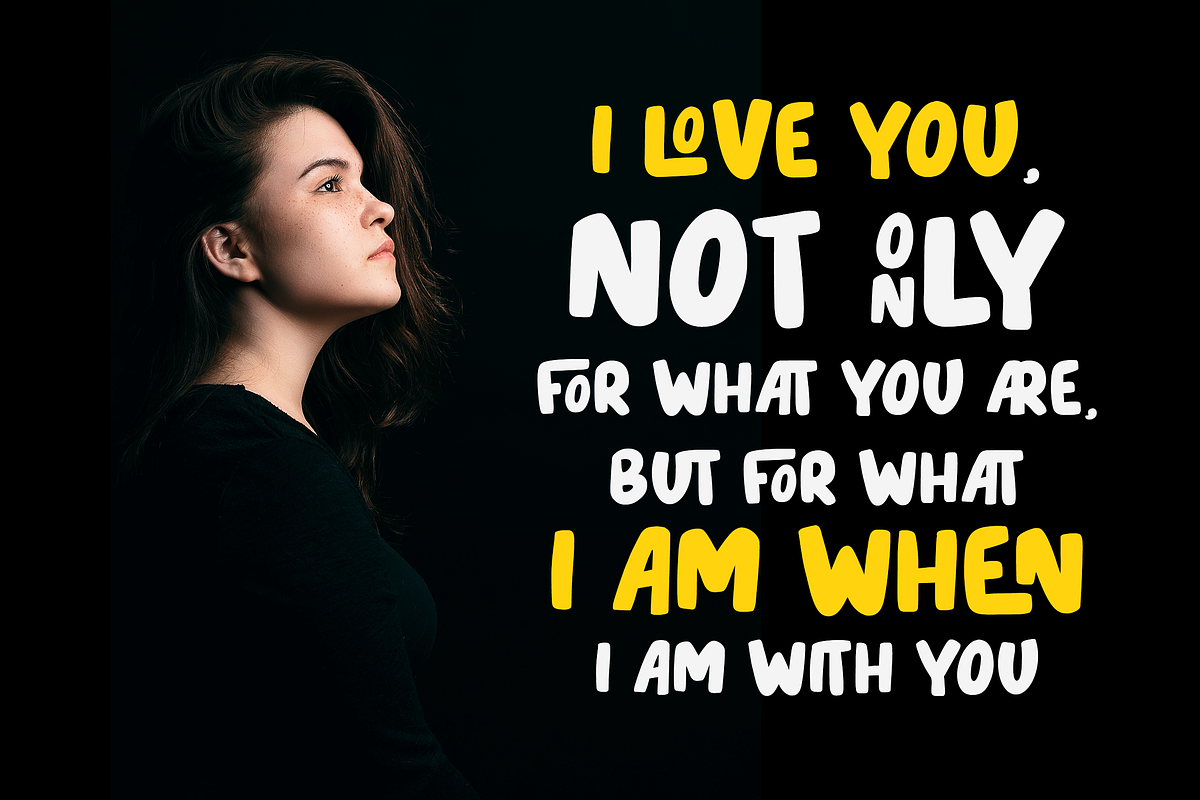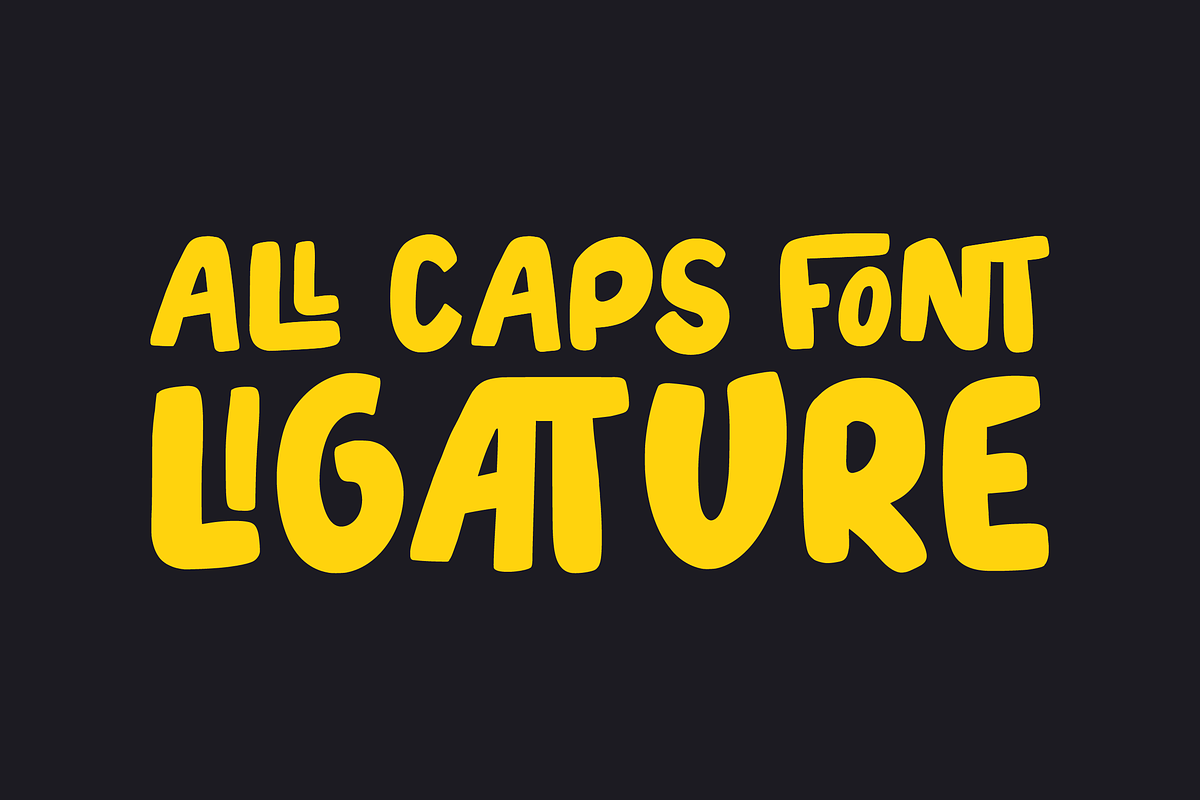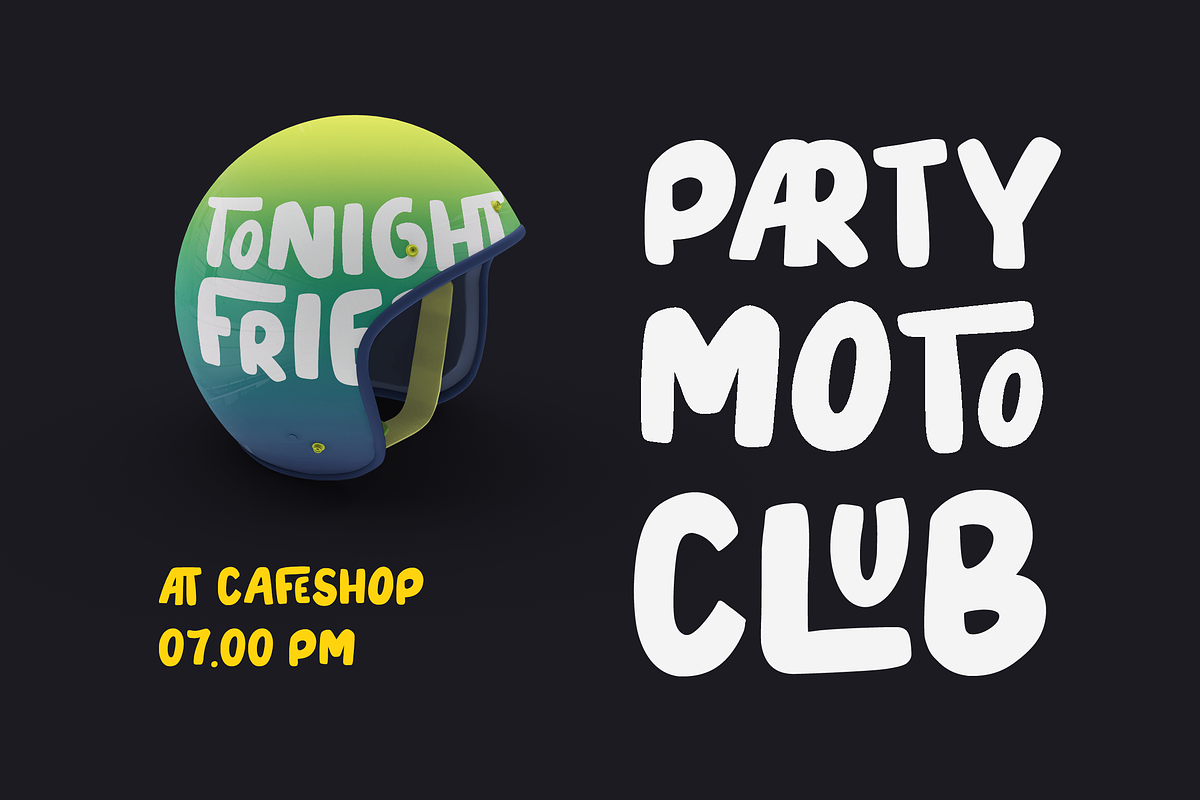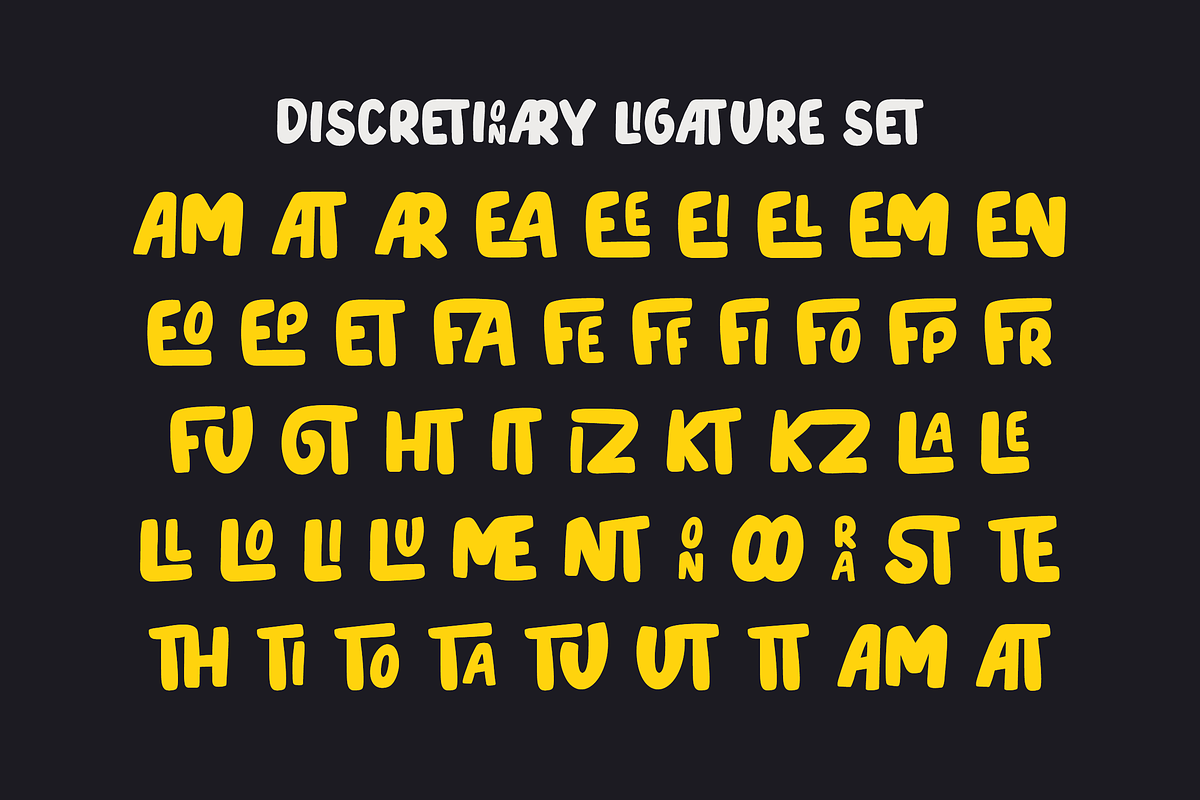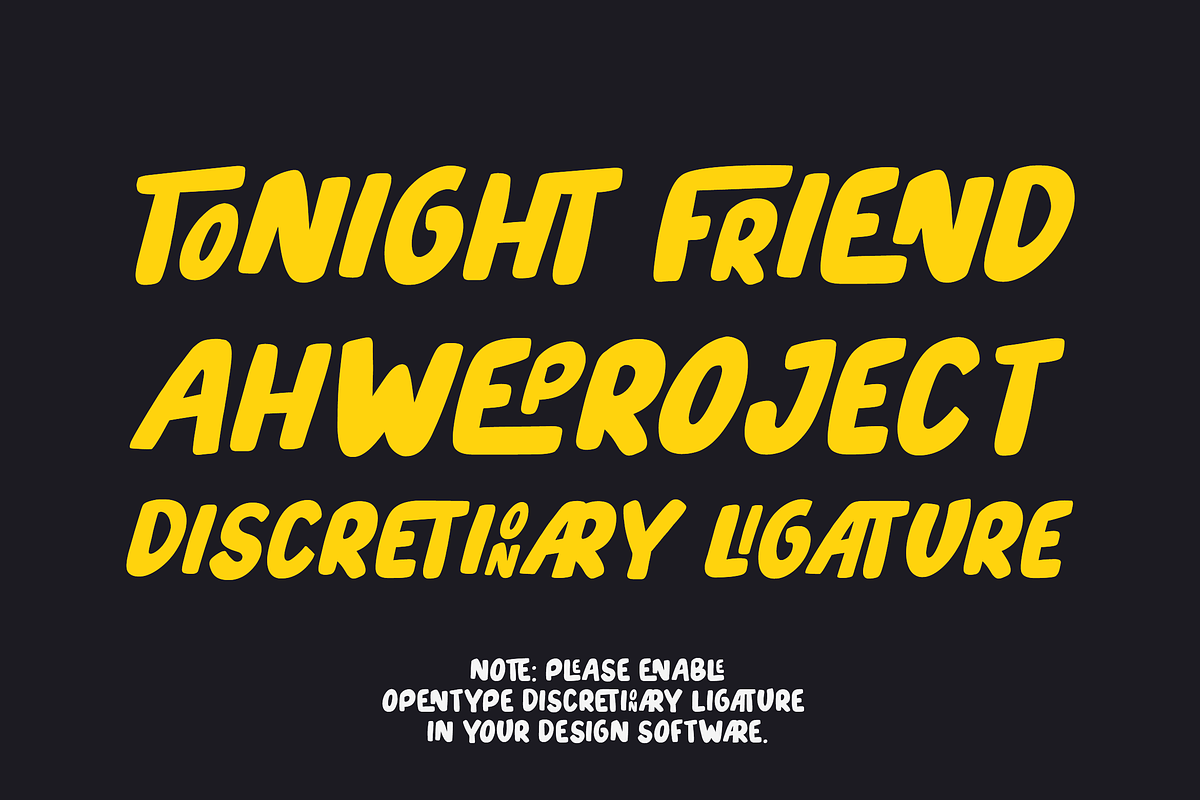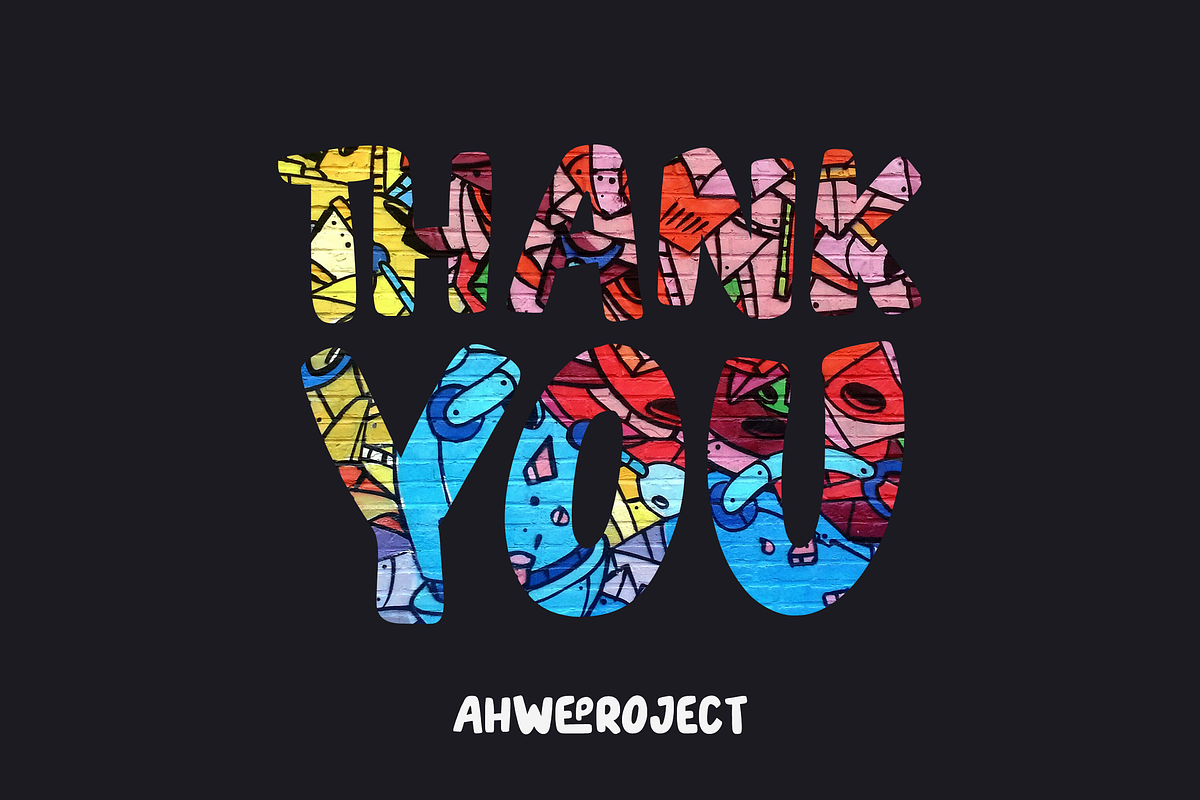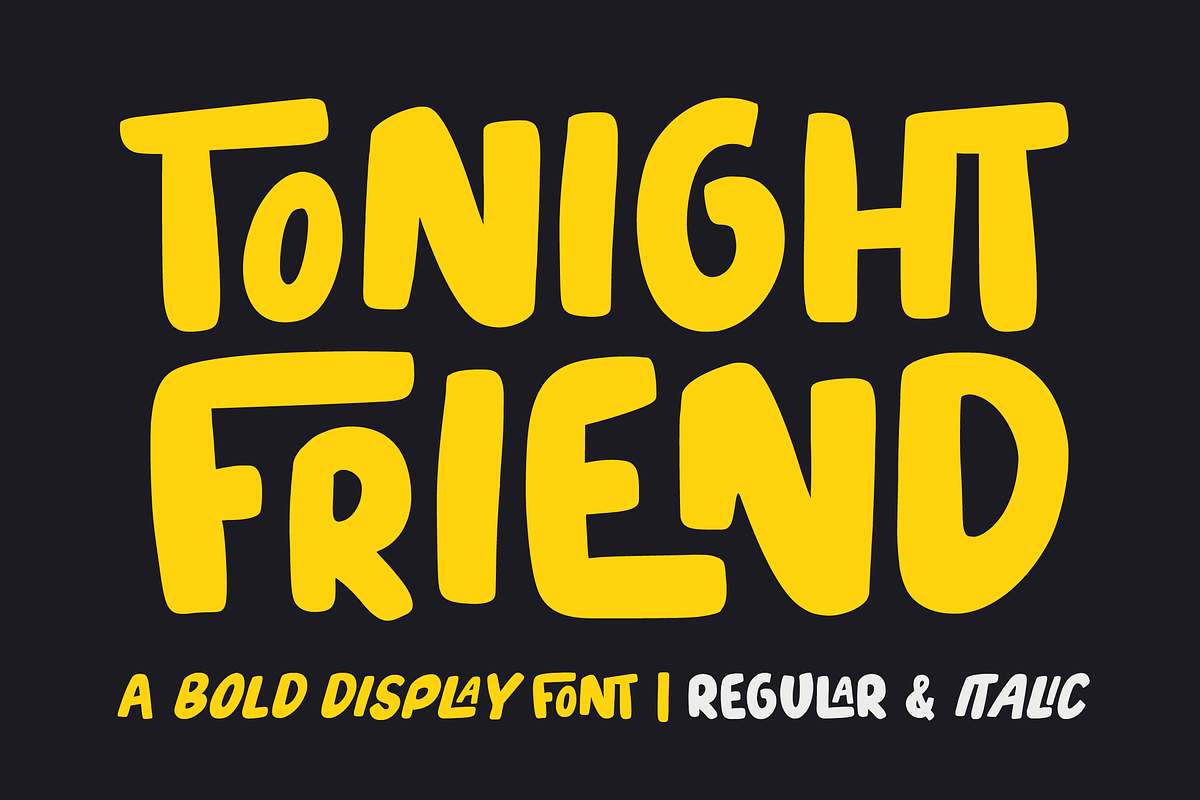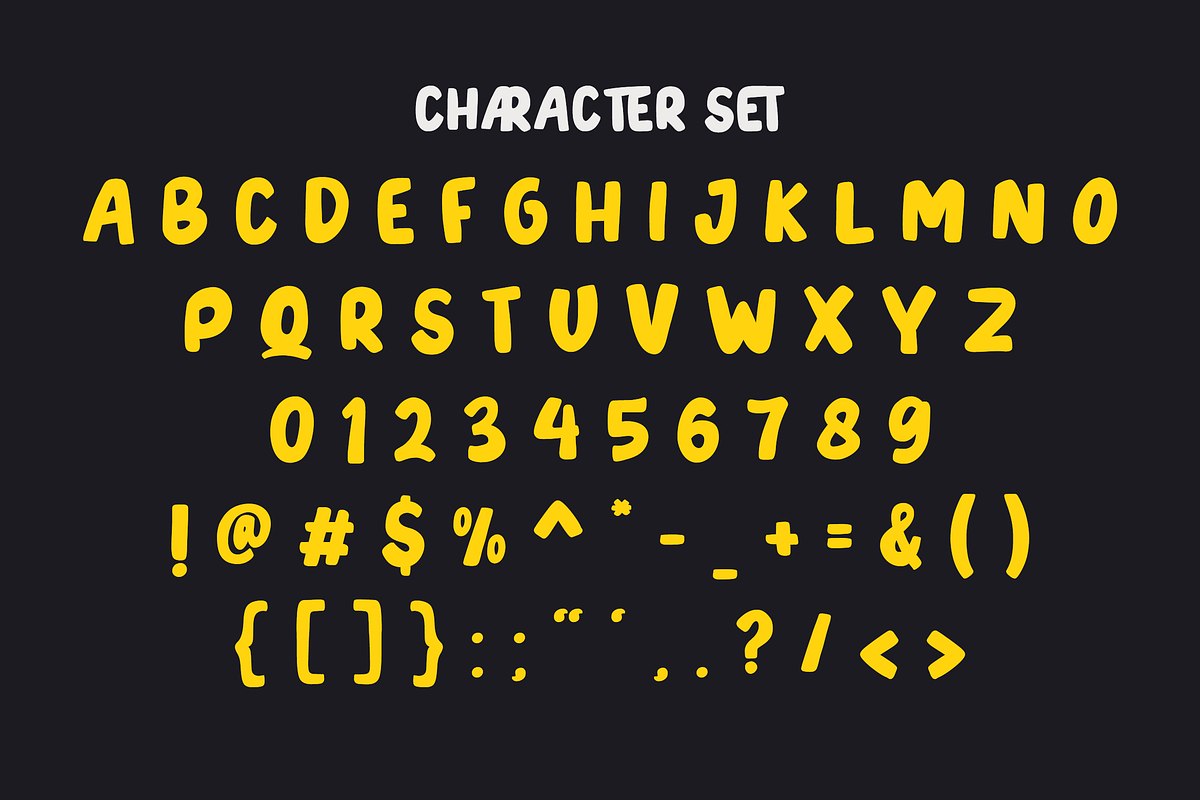
Tonight Friend
“Tonight Friend” is a bold and quirky display font with a fun, trendy street-style vibe. From posters designs to t-shirts and packaging, Tonight Friend will give your designs that alternative minimal look and make your creative work look supercharged.
“Tonight Friend” is drawn by direct hand so that it looks more unique.
The modern typeface has a host of ligatures included. Combine its bold shapes to give your work a more unique, hipster attitude. Easily create professional cool-type lockups that look like hand lettering.